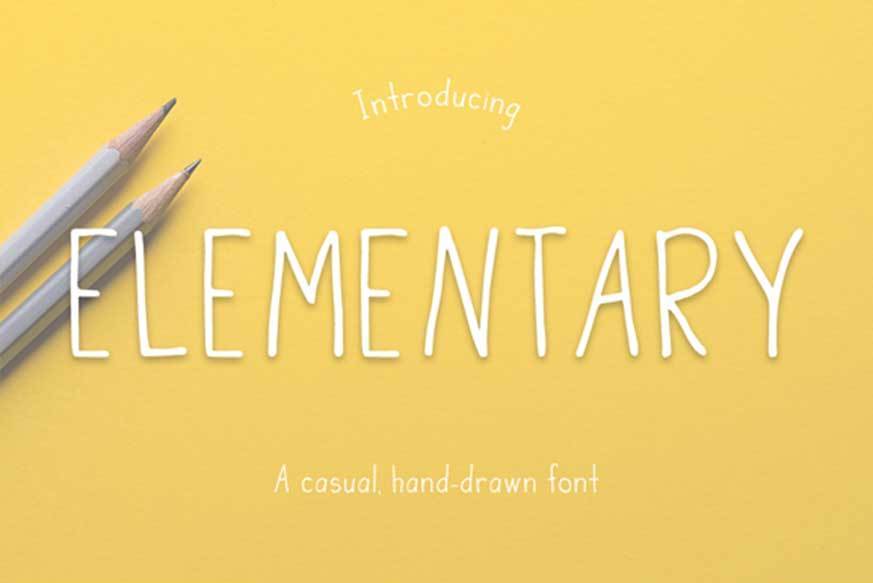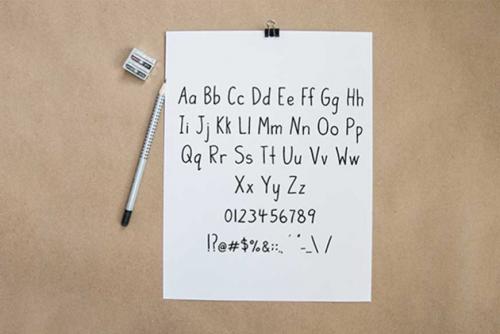
Elementary is a simple, hand-drawn sans-serif font, designed by Stephanie West Design. Perfect for greeting cards, invitations and anything else that requires an uncomplicated, easily, legible font with a casual, child-like feel.